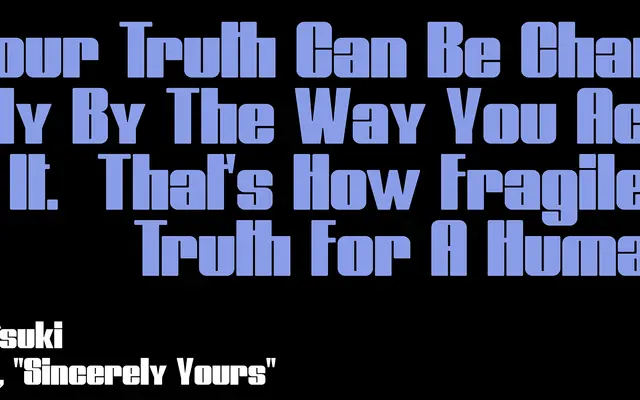
Evangelion Font Family
Type Department · Domenico Barréto
A geometric display sans by Domenico Barréto, drawing on Wim Crouwel's grid-based lettering and the visual identity of the Evangelion anime series.
Built on strict geometric construction, the typeface references Crouwel's modular, grid-driven approach to letterform design and pairs it with the angular drama associated with the Evangelion franchise. Two styles are available, Regular and Italic, with a glyph set of 525 characters covering Latin Extended, diacritics, three sets of numerals, fractions and arrows. Best suited to headlines, posters and branding where a hard-edged, constructed look is the goal.
A sans-serif constructed with strict geometric rigour and a flat, modular aesthetic drawn from Wim Crouwel's grid-based lettering; its display intent and bold visual character place it firmly in the display category.